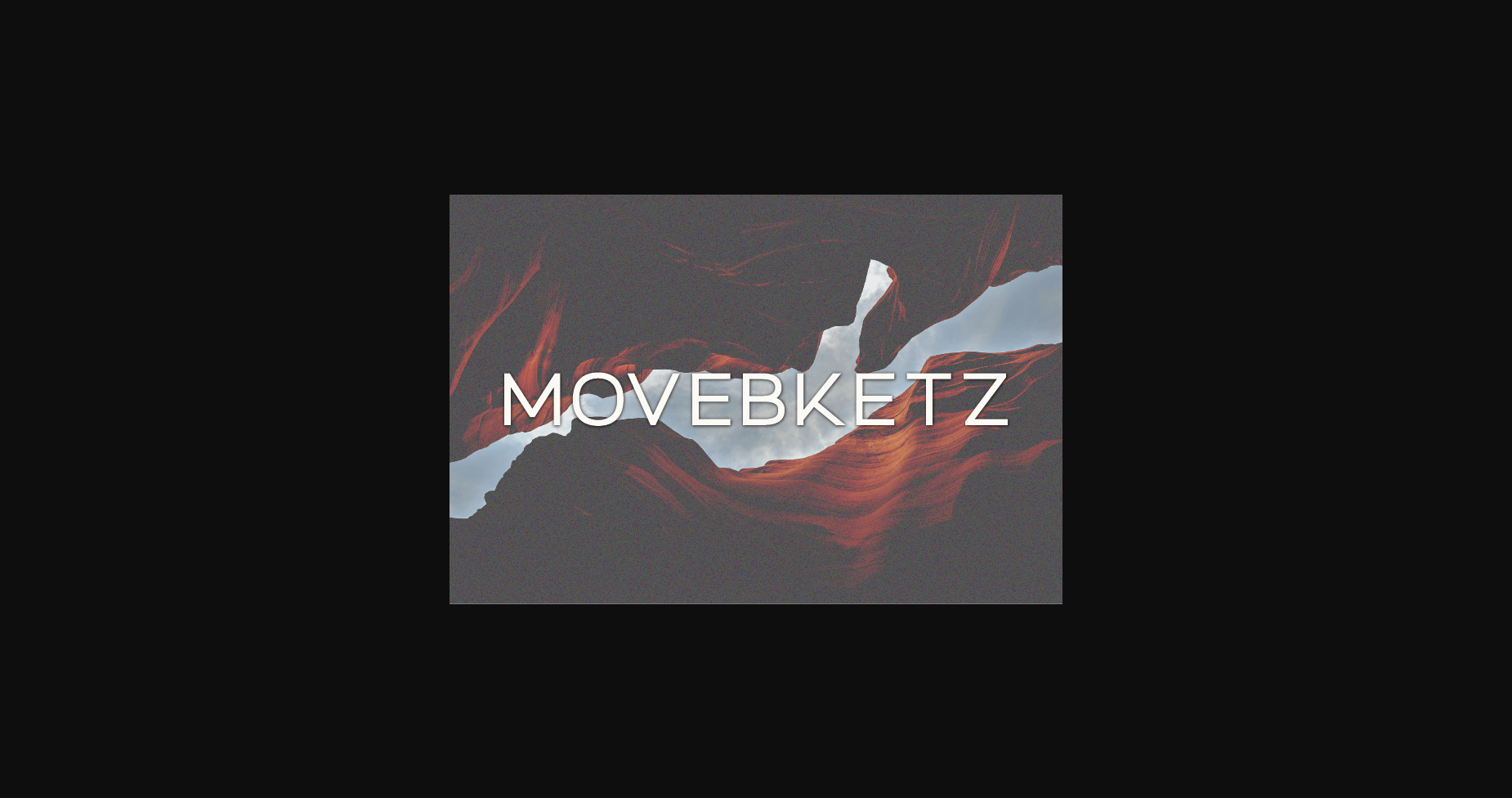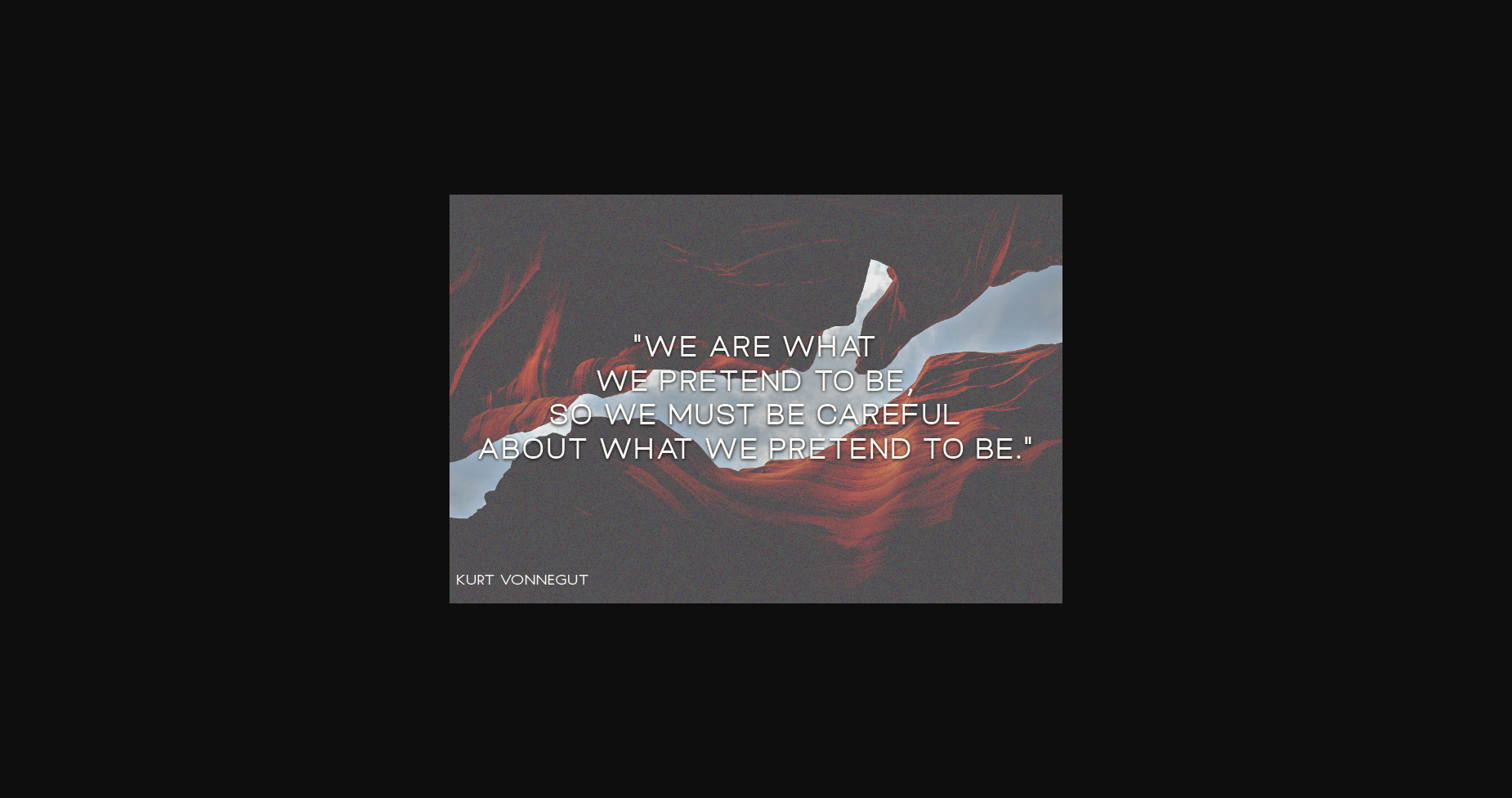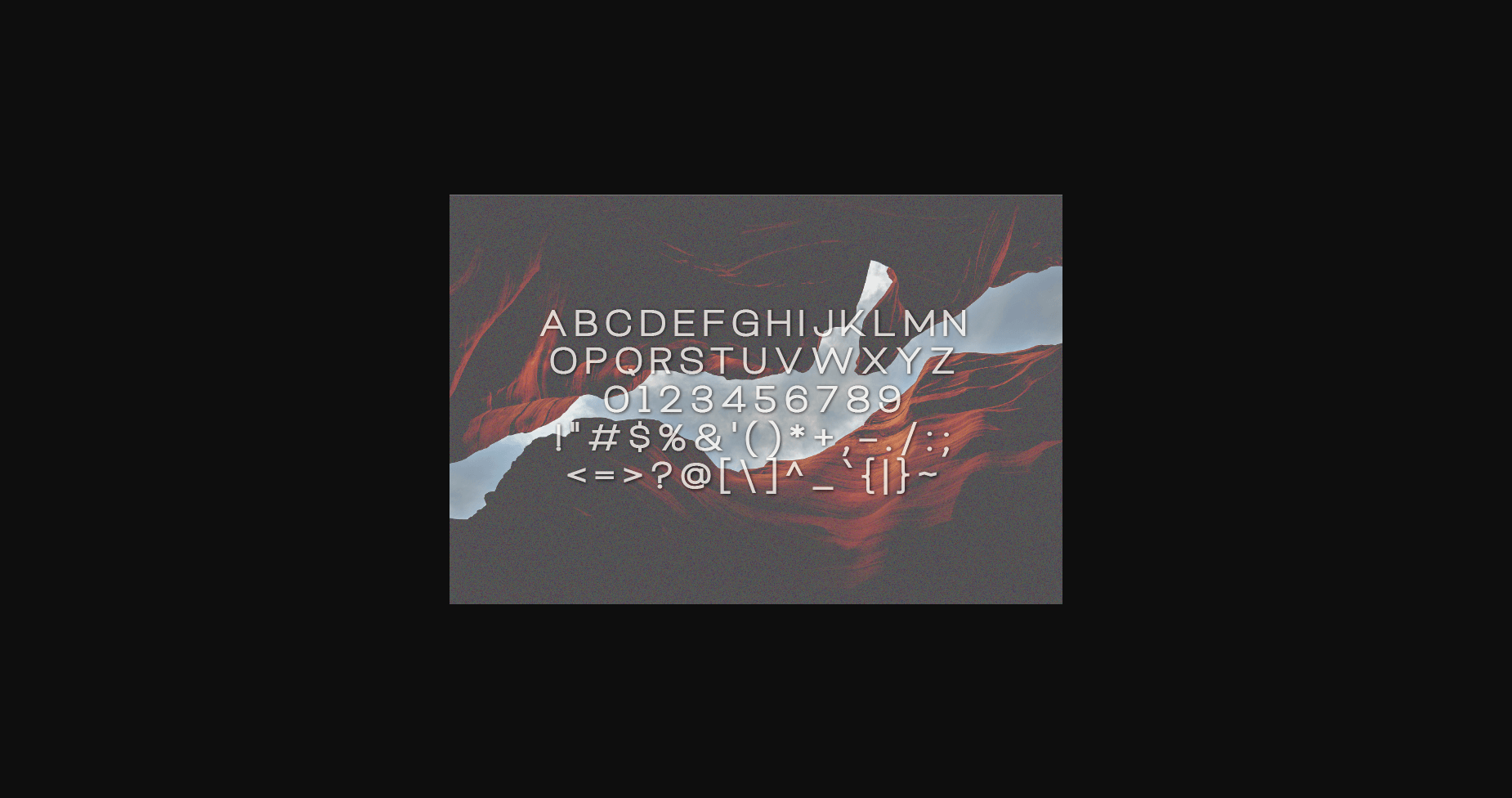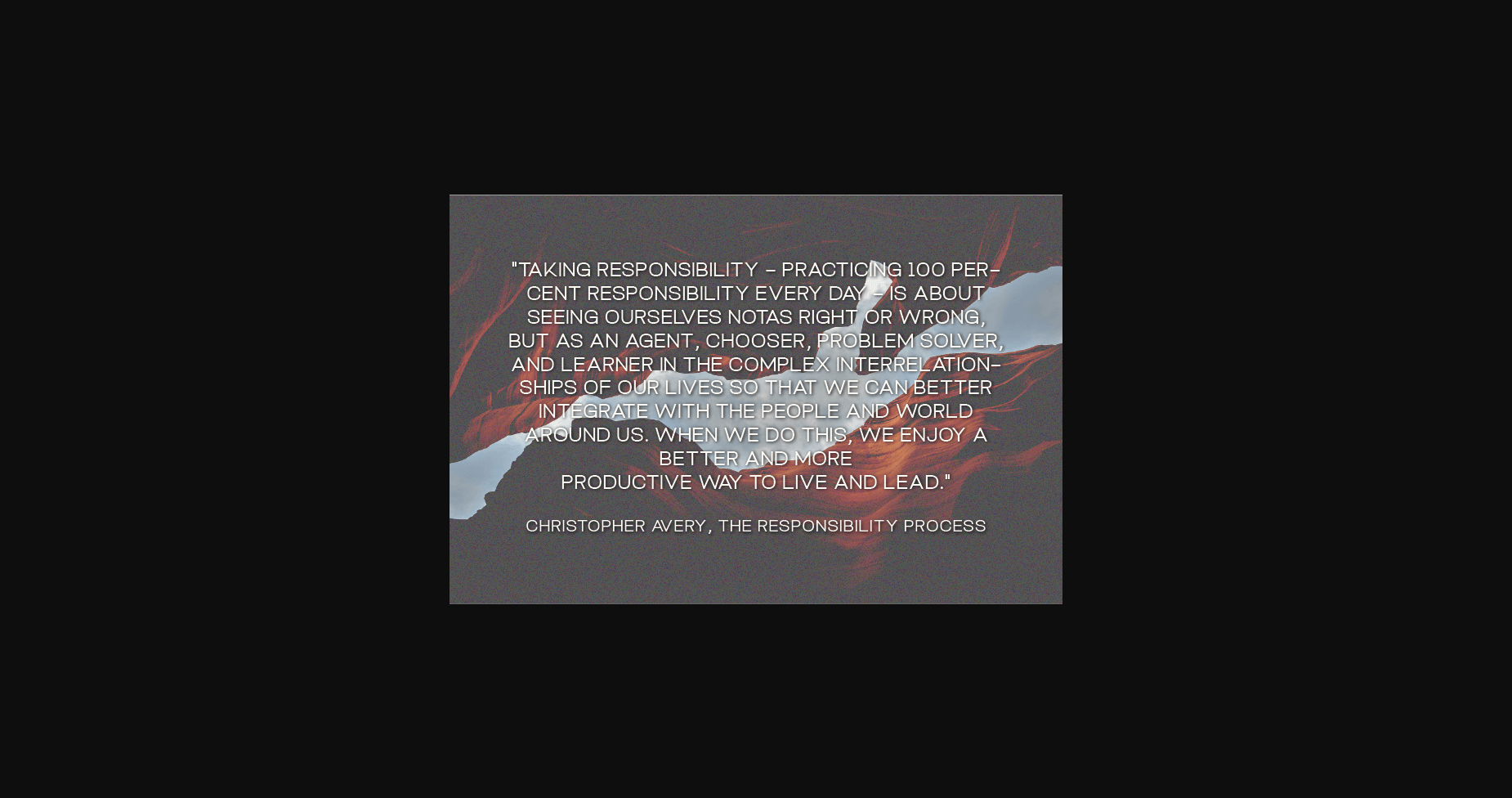
About Movebketz Font
Movebketz is a modern, classy sans serif typeface. Extremely versatile, this typeface is perfect for logos, weddings, invitations, quotes, advertisements, print, magazines, and more!